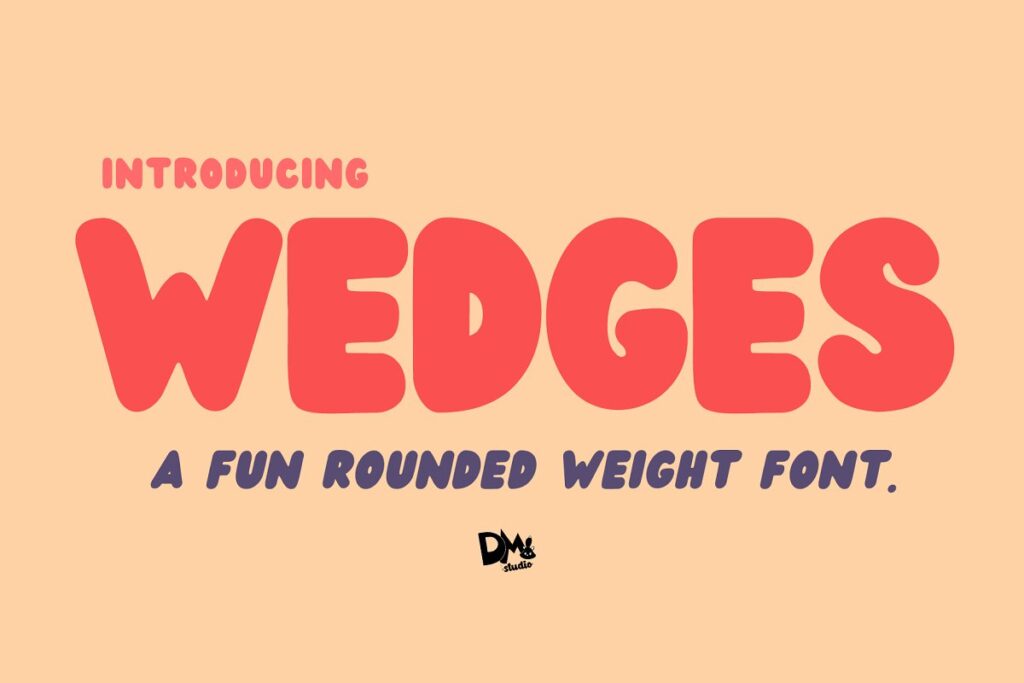
Bold and plumpy rounded typeface. Never aged style. Versatile yet cute, stylish, and delicate handwritten font. Wedges has 2 versions, Regular and Italic.